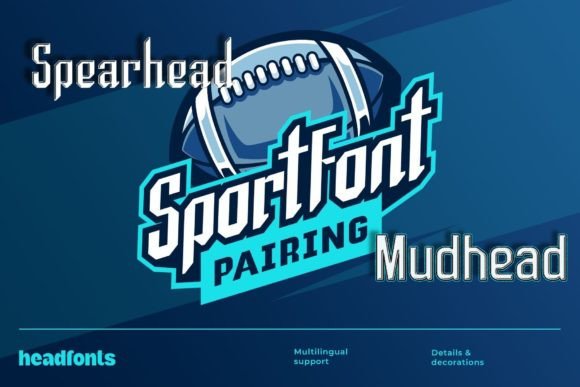
Spearhead Mudhead Duo: A Sporty Font for Modern Design
If you're looking for a font that combines boldness with readability, Spearhead Mudhead Duo might be the perfect addition to your design toolkit. This modern display font offers a unique blend of style and functionality, making it ideal for a wide range of projects. Whether you're working on a personal logo, a professional website, or a creative marketing campaign, Spearhead Mudhead Duo can help elevate your visual identity.
Designed with a sporty aesthetic, this font is especially well-suited for brands that want to convey energy, movement, and innovation. Its clean lines and dynamic shapes make it stand out while maintaining legibility at various sizes. The combination of the two fonts in the duo allows for greater flexibility, giving designers more options to express their vision effectively.
What Makes Spearhead Mudhead Duo Unique?
Spearhead Mudhead Duo consists of two distinct typefaces that work well together. The first, Spearhead, has a strong, angular structure that exudes confidence. The second, Mudhead, adds a more relaxed and playful touch, creating a balanced contrast that's both visually appealing and versatile. This pairing makes it easy to create designs that feel fresh and contemporary without sacrificing clarity.
One of the standout features of Spearhead Mudhead Duo is its adaptability. It performs well in both digital and print formats, which is essential for modern designers who need to maintain consistency across multiple platforms. The font also includes a range of weights and styles, allowing users to tailor their designs to specific needs and contexts.
Key Characteristics and Strengths
Spearhead Mudhead Duo is known for its sharp edges and geometric precision. These traits give it a modern, high-energy look that can be used to draw attention and convey a sense of urgency or excitement. At the same time, the font doesn't sacrifice readability, ensuring that text remains clear and easy to understand even at smaller sizes.
The font's versatility is another major strength. It works well in headlines, logos, and body text, making it suitable for a variety of design applications. Its sporty vibe also makes it a great choice for branding in industries like fitness, technology, and entertainment, where a dynamic and forward-thinking image is important.
Practical Applications of Spearhead Mudhead Duo
Designers can use Spearhead Mudhead Duo in numerous ways to enhance their work. For example, it's an excellent choice for creating eye-catching headlines on websites, social media posts, or advertisements. Its bold appearance helps capture attention, making it ideal for promotional materials or content that needs to stand out.
In a professional setting, this font can be used to develop brand identities that reflect a modern and energetic approach. Companies in the tech or fashion industries, for instance, might find it useful for creating logos, packaging, or marketing collateral that conveys innovation and style. It can also be used in presentations or reports to add a touch of visual interest without overwhelming the reader.
Educators and students can also benefit from using Spearhead Mudhead Duo. It's a great option for creating engaging lesson plans, infographics, or classroom materials that require a fresh and modern look. Its readability ensures that information is communicated clearly, while its stylish design adds a creative element to educational content.
Benefits of Using Spearhead Mudhead Duo
One of the main advantages of Spearhead Mudhead Duo is its ability to enhance user experience. By using a font that's both visually striking and easy to read, designers can improve the overall appeal of their work while maintaining functionality. This is especially important in digital environments where users often have short attention spans and expect quick, clear communication.
Another benefit is the font's potential to boost engagement. In marketing and advertising, a well-chosen font can make a significant difference in how audiences perceive a message. Spearhead Mudhead Duo's sporty and modern look can help brands connect with their target audience in a more relatable and memorable way.
For businesses, using Spearhead Mudhead Duo can also contribute to a stronger brand presence. Consistent typography across all platforms helps reinforce brand recognition, making it easier for customers to identify and remember a company. This is particularly valuable in competitive markets where differentiation is key.
Recommendations for Using Spearhead Mudhead Duo
When incorporating Spearhead Mudhead Duo into your designs, it's important to consider the context and purpose of the project. For example, using it as a headline font can create a strong visual impact, but it may not be the best choice for long paragraphs of text. Balancing it with a more traditional font can help maintain readability while still leveraging its stylistic strengths.
It's also a good idea to test the font in different sizes and formats to ensure it performs well in all scenarios. Some designers prefer to use it in conjunction with other fonts to create a cohesive and visually appealing layout. Experimenting with spacing, color, and alignment can further enhance the effectiveness of the font in your designs.
Finally, always keep your audience in mind. While Spearhead Mudhead Duo has a sporty and modern feel, it may not be appropriate for every project. Consider the tone and message you want to convey before deciding to use it. When used thoughtfully, it can add a powerful visual element to your work.